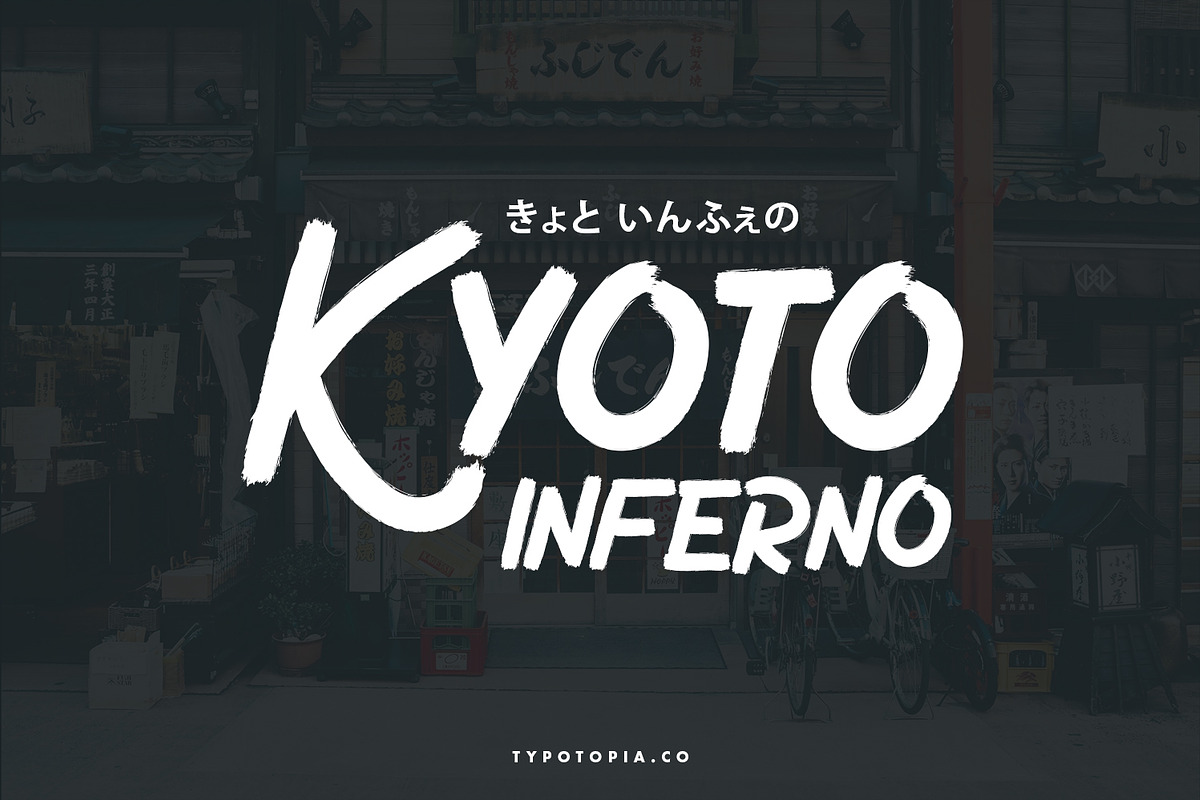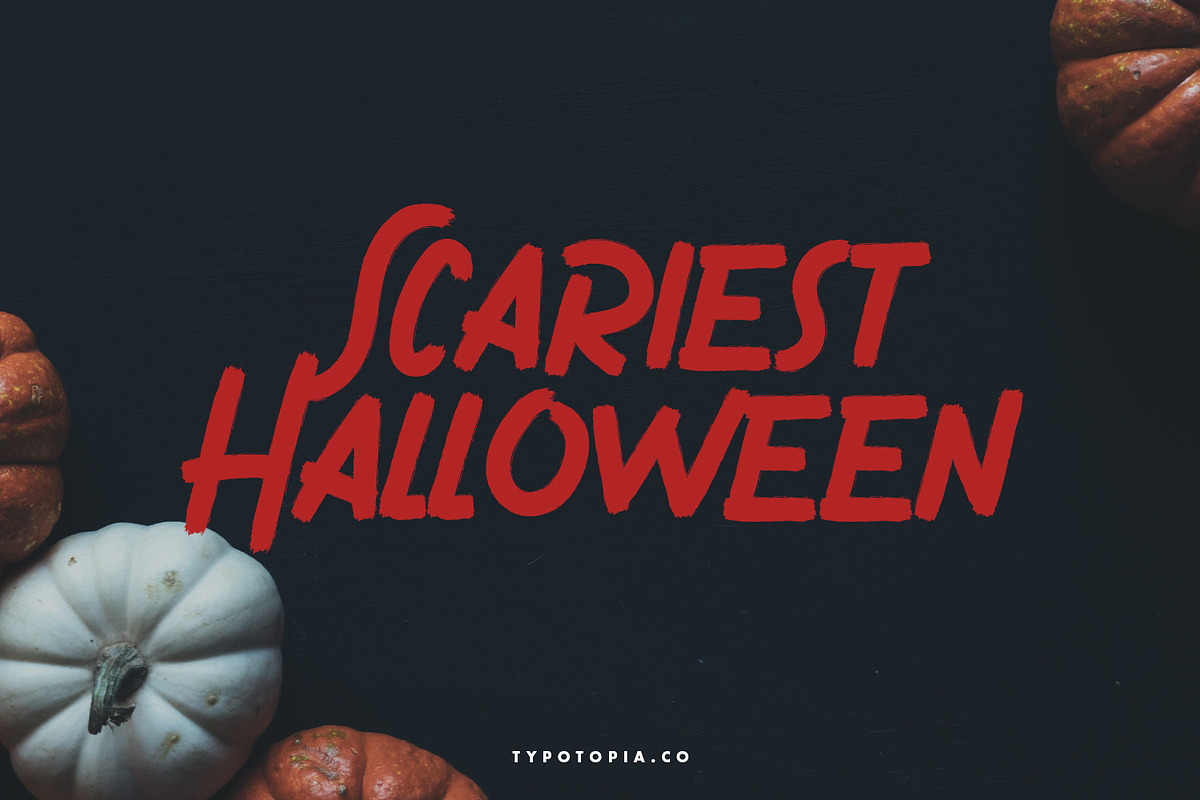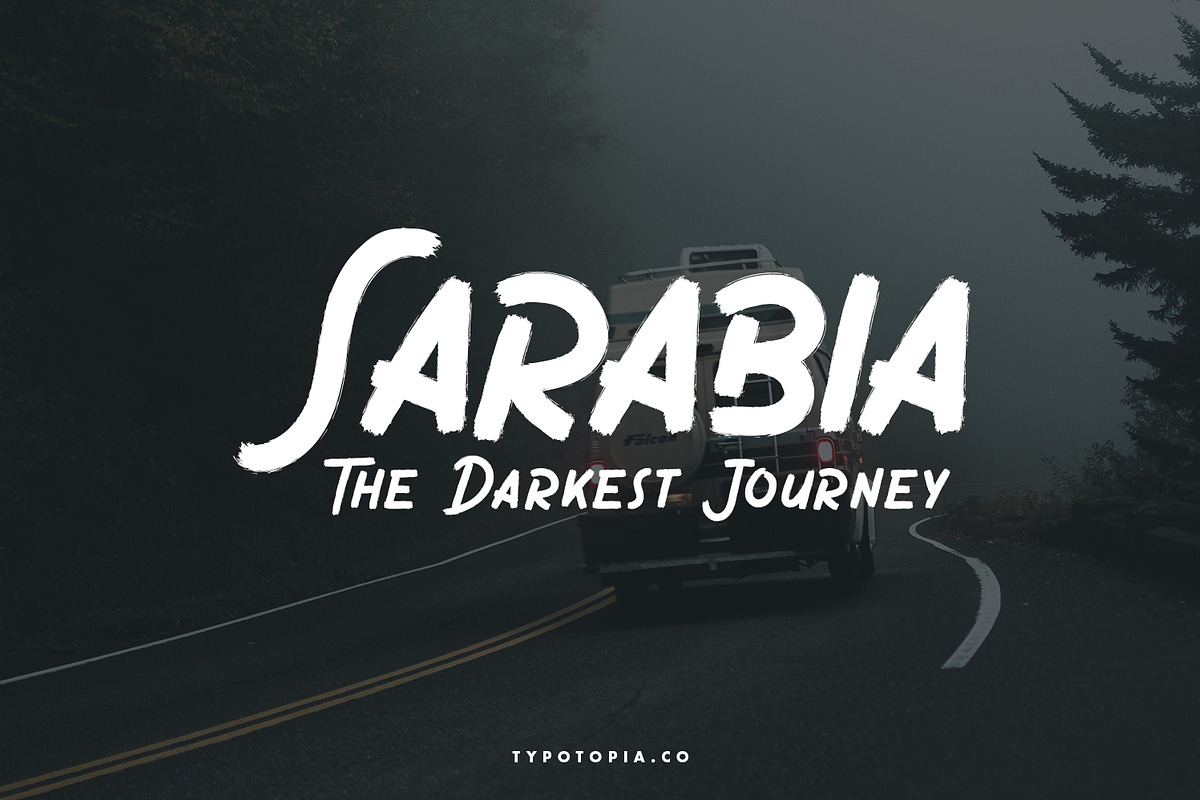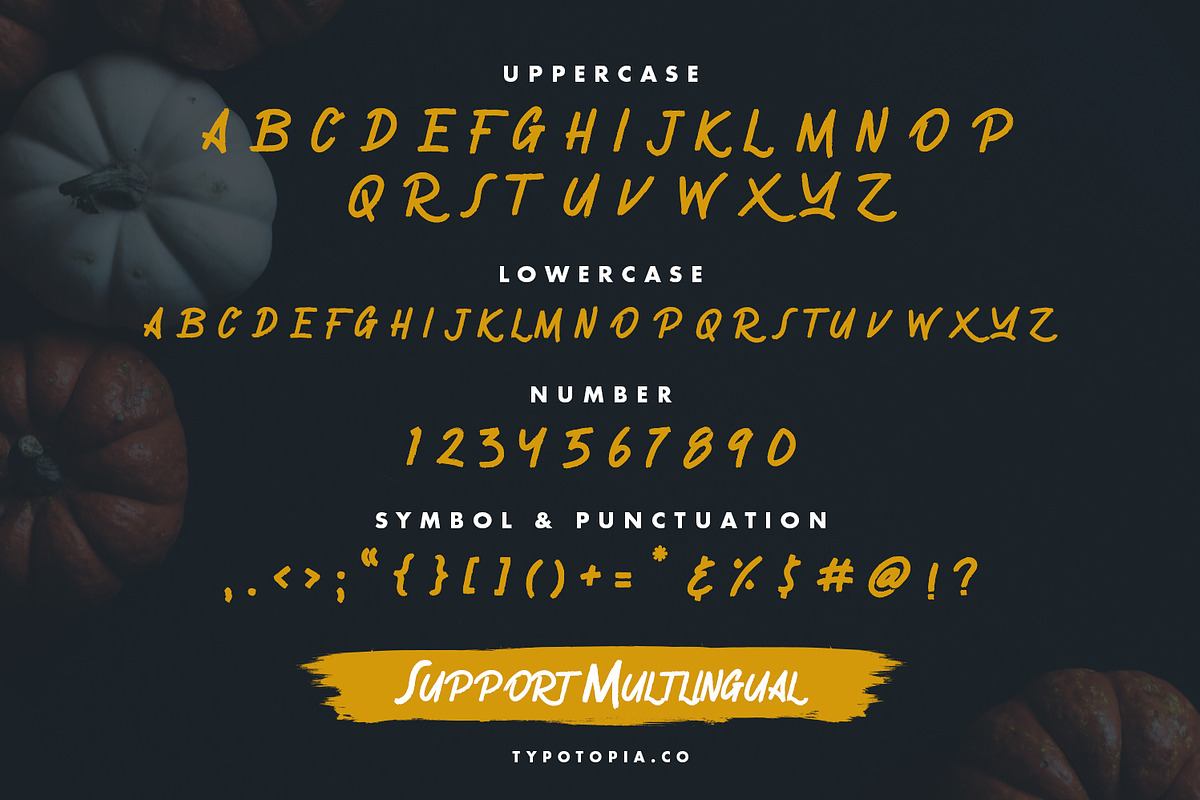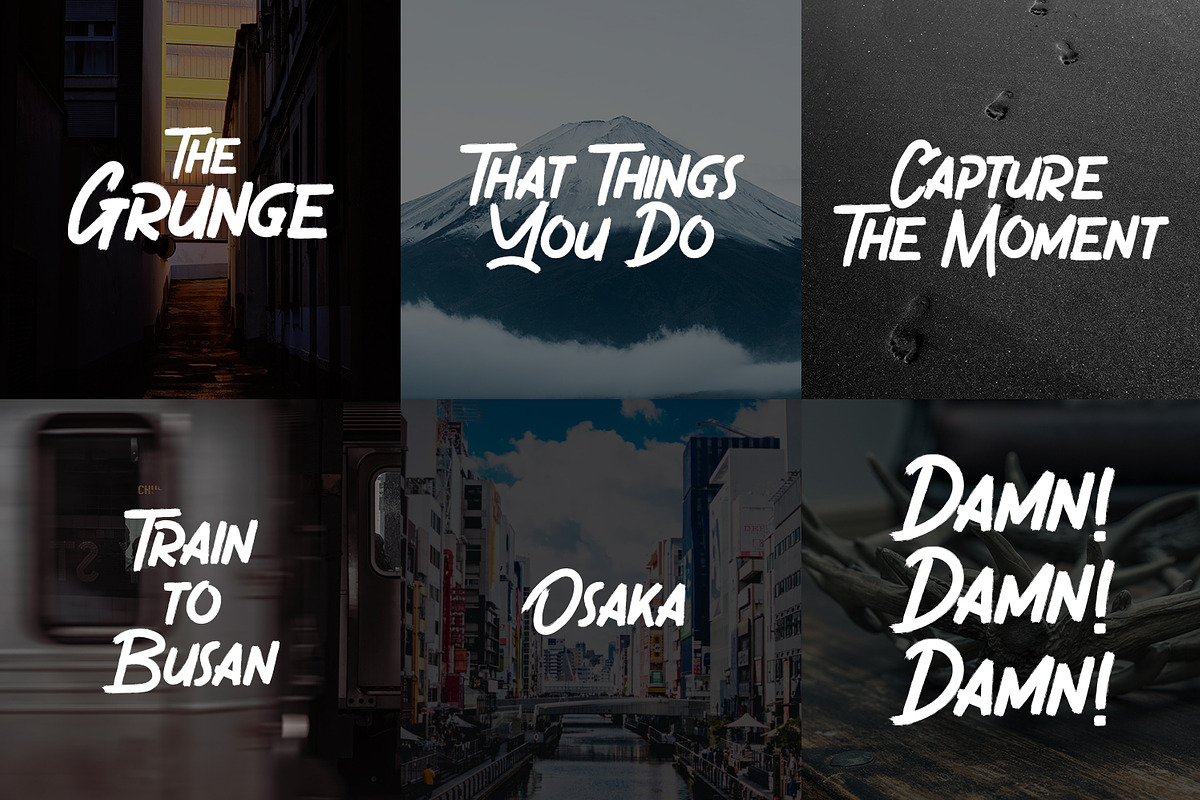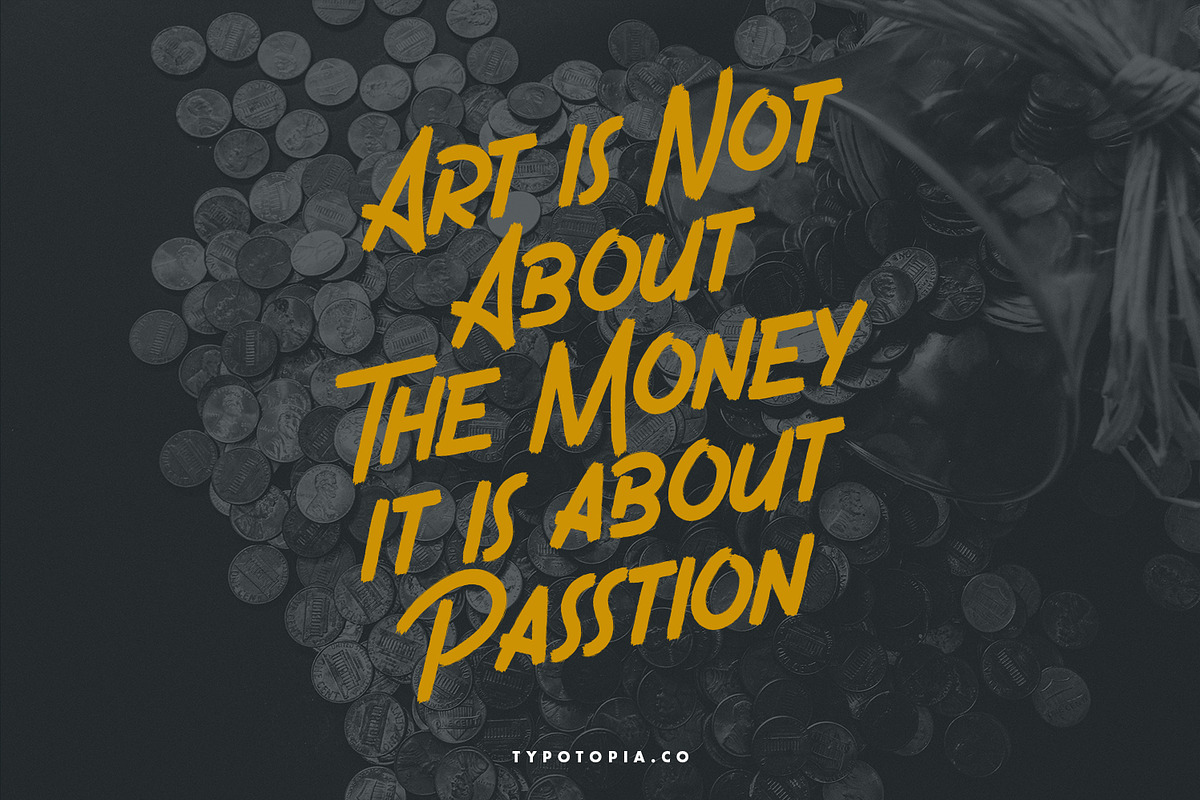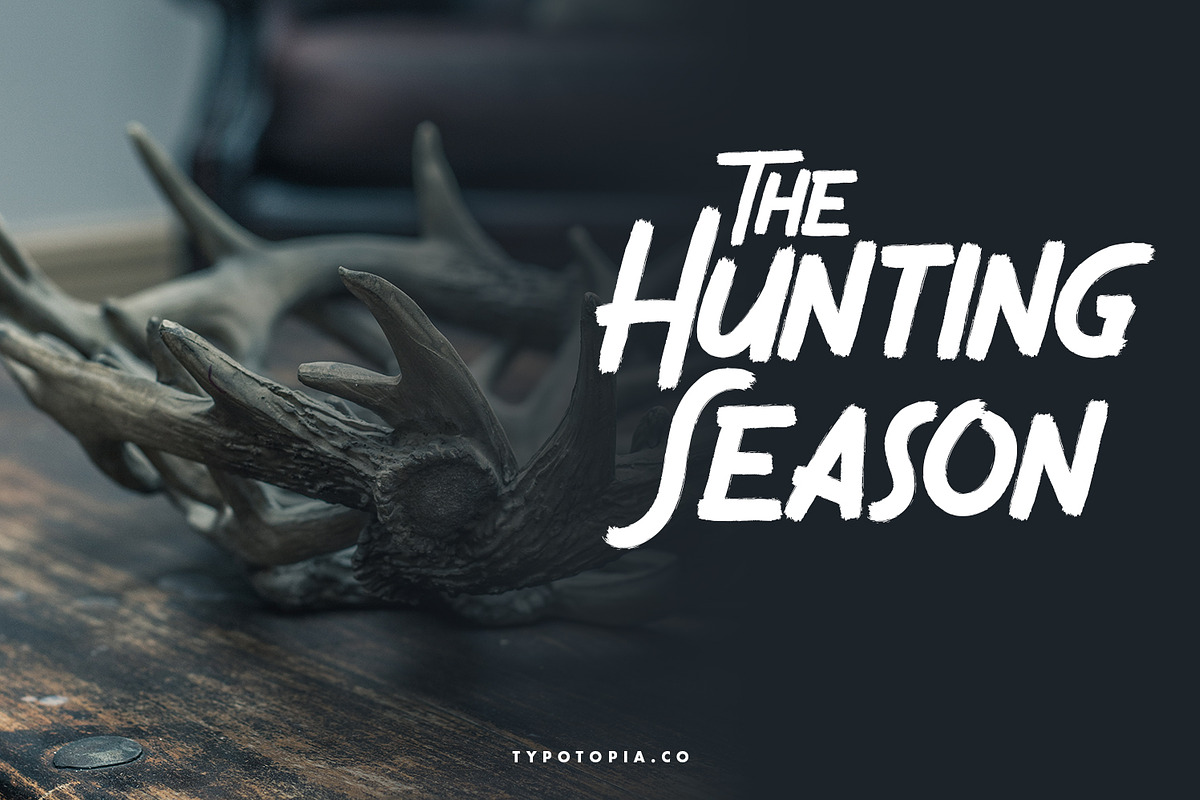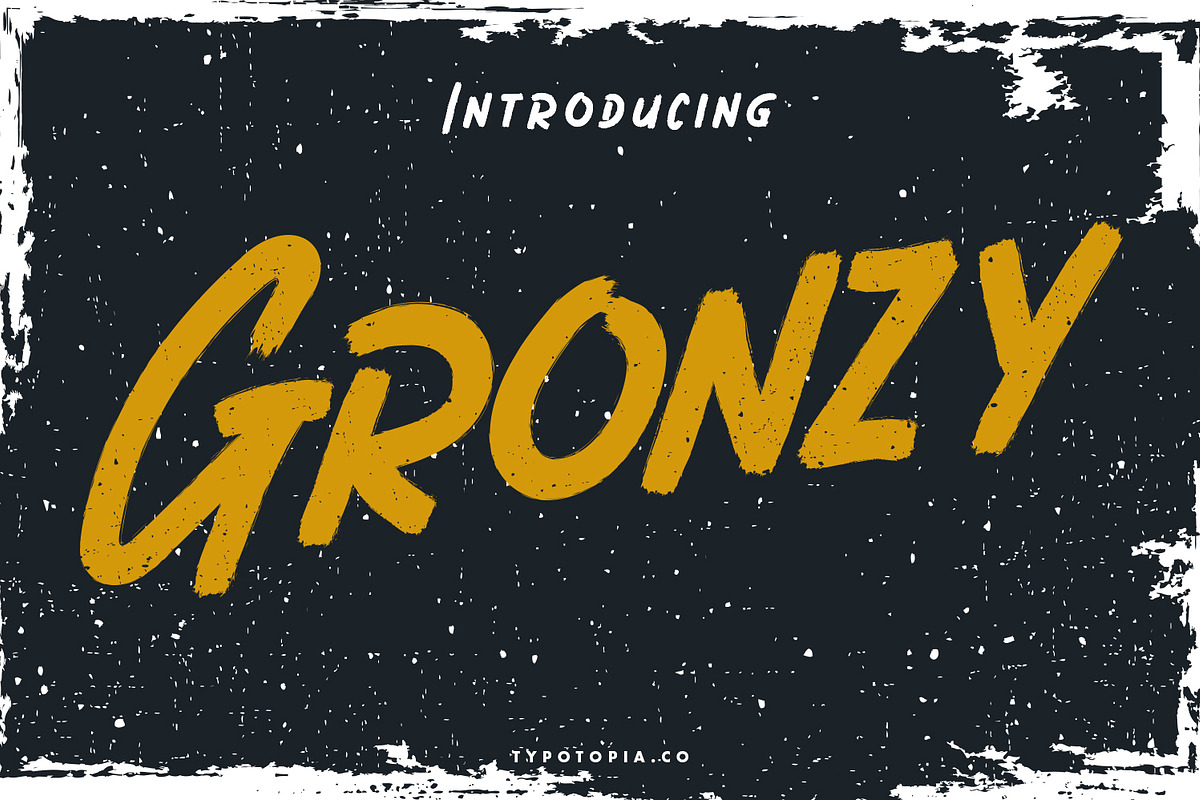
Gronzy - Brush Font
We're Proudly Introduce to all of you, Gronzy, The Brush Font, This Horror Theme Typeface Comes with Unique Style
Gronzy is the great choice for several purpose, it suitable for horror movie title, movie posters, poster loud music, and other similar designs. Horror Joys Typeface is perfect for those of you who like mystery, myths and ghost stories.
Gronzy also Support Multilingual Feature for Foreign Language, here’s the list :
áäåãéèëìïîòöôøùüAÀÁÂÃÄÅEÈÉÊËIÌÍÎÏNÑOÒÓÔÕÖUÙÜÚÛYÝŸ?Ÿ
Uppercase & Lowercase letters